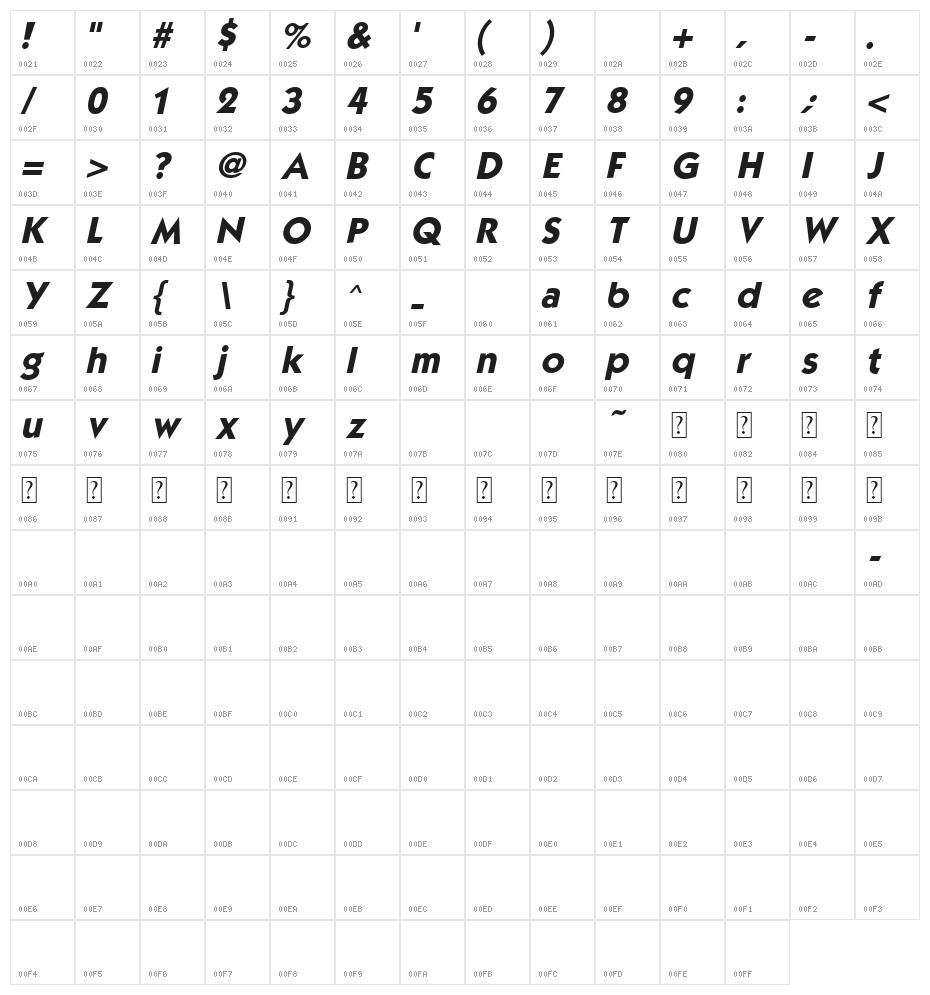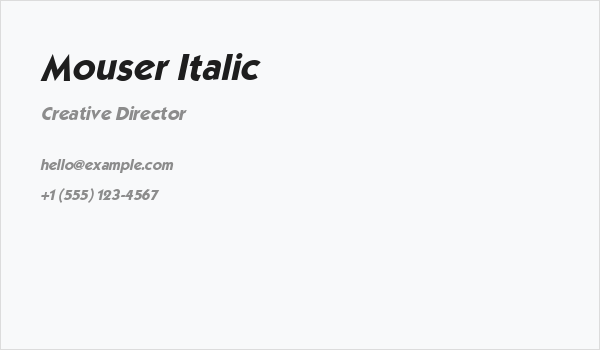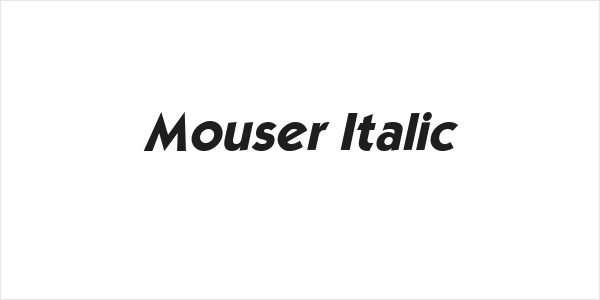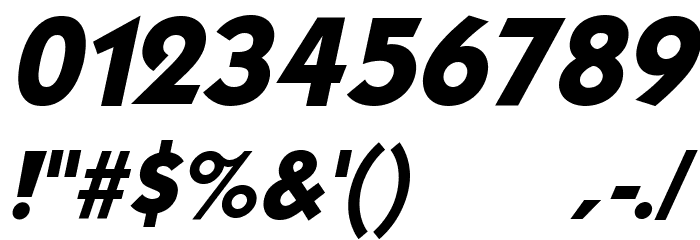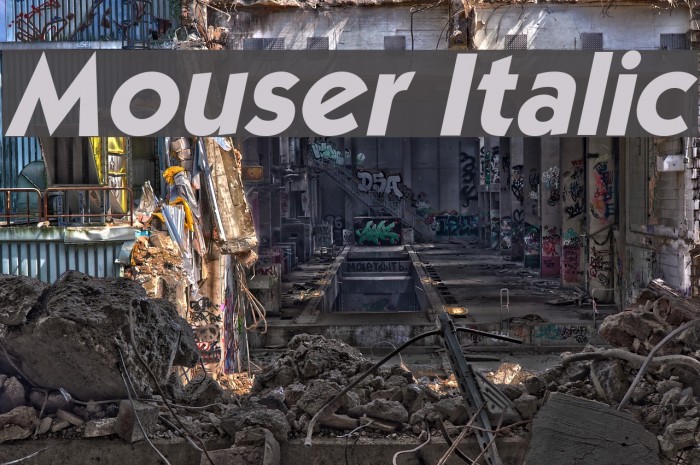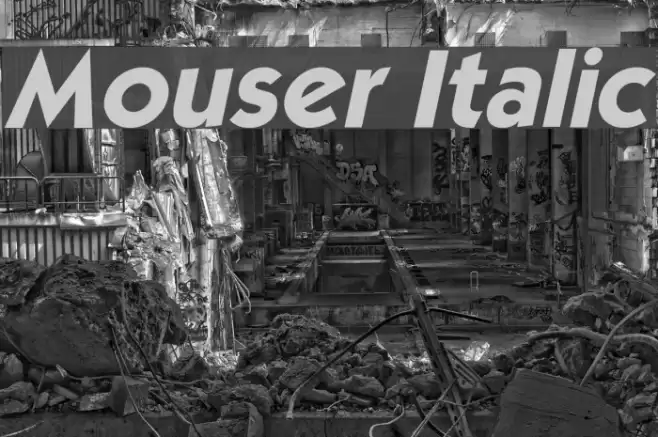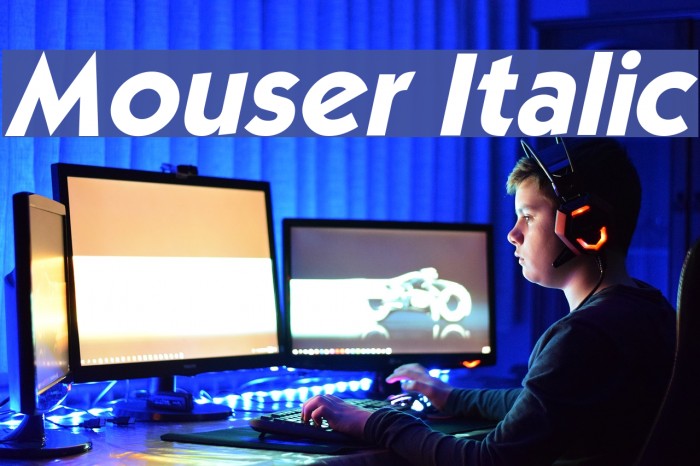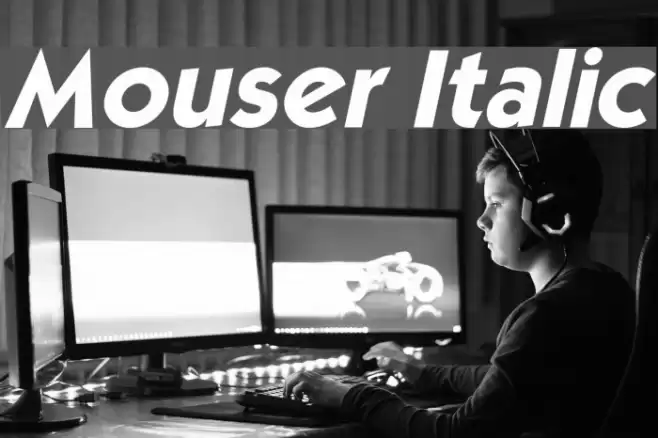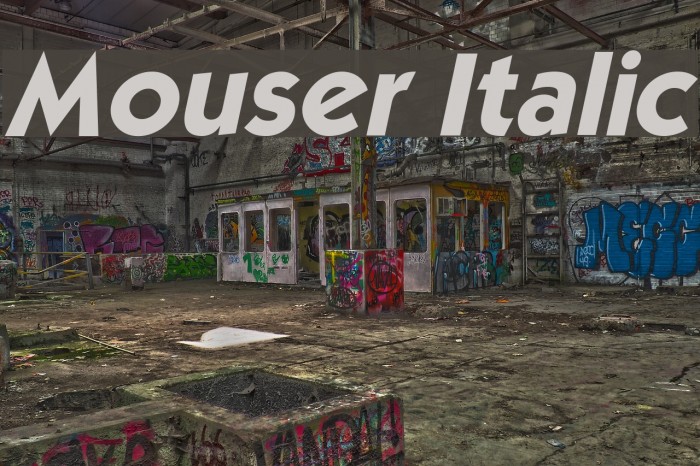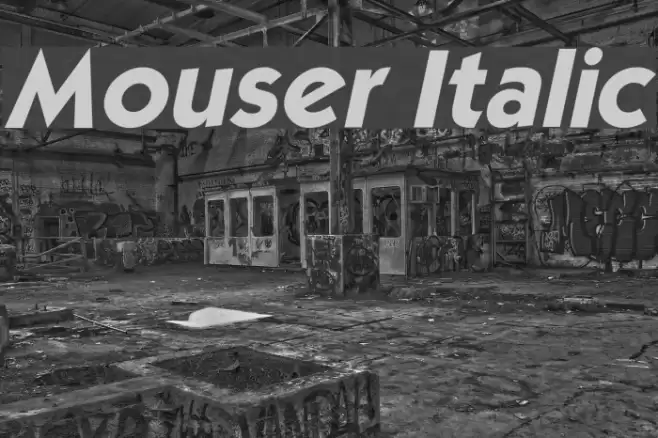
Mouser Italic Font
Mouser Italic Description
This font features a bold and dynamic italic style, characterized by its slanted and forward-leaning posture. The letters are thick and robust, providing a strong visual impact. The uppercase and lowercase letters maintain a consistent slant, enhancing the font's energetic appearance. The numerals are equally bold, ensuring readability and uniformity across different uses. Special characters are designed with the same boldness and slant, making them cohesive with the rest of the font. The overall design is modern and assertive, suitable for projects that require a strong and confident typographic presence.
| Use Case | Headlines, Logos, Branding |
| Proposed Projects | Ideal for branding, advertising, headlines, and any design work that requires a bold and modern aesthetic. |